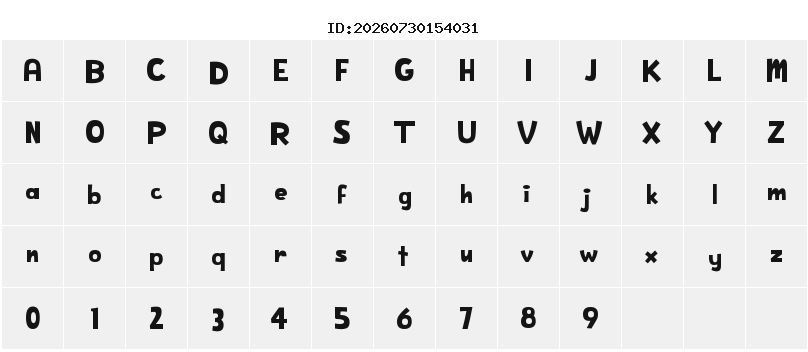
• Font Name: Lyons
• Full Font Name: Lyons
• Version: Version 1.00 December 1, 2016, initial release
• Designer: Dan P. Lyons (D-Lyons Design)
About Lyons.ttf
Lyons.ttf is a modern, elegant sans-serif font designed for ultimate readability and visual harmony. Perfect for branding, headlines, web design, and print materials.